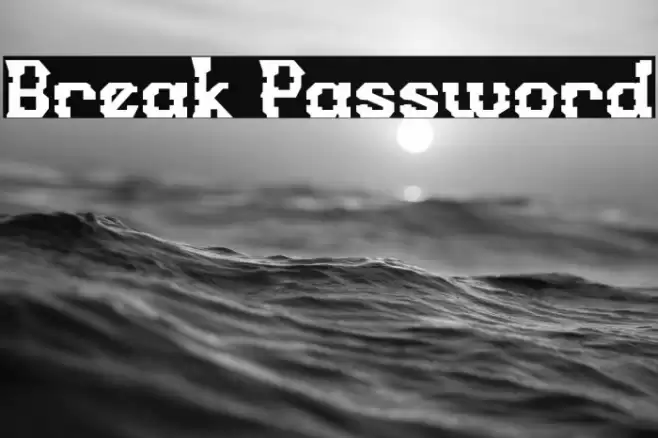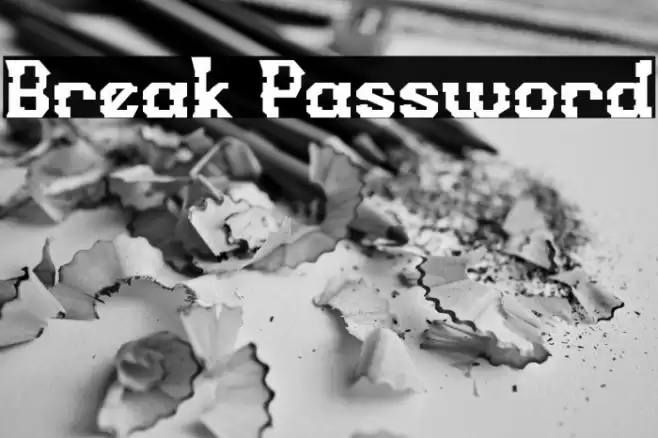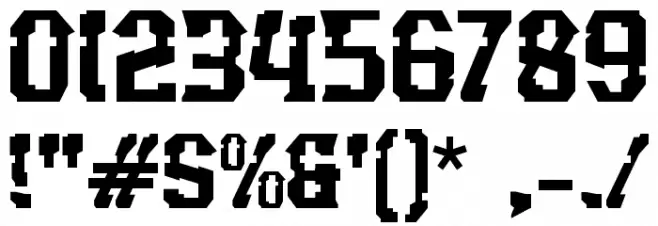
Break Password Font
Break Password Description
This font features a bold, angular design with a distinct geometric style. The characters are constructed with sharp edges and a blocky appearance, giving it a strong and impactful presence. The uppercase and lowercase letters maintain a consistent width, creating a uniform look across the text. Numbers and special characters follow the same bold and angular theme, ensuring a cohesive design throughout. The font's unique style makes it stand out, suitable for projects that require a modern and edgy aesthetic.
A bold, angular font with a geometric and blocky design from Uncategorized fonts.
- Font: Break Password
- Proposed Projects: Ideal for posters, video game graphics, branding materials, and any project needing a modern, edgy look.